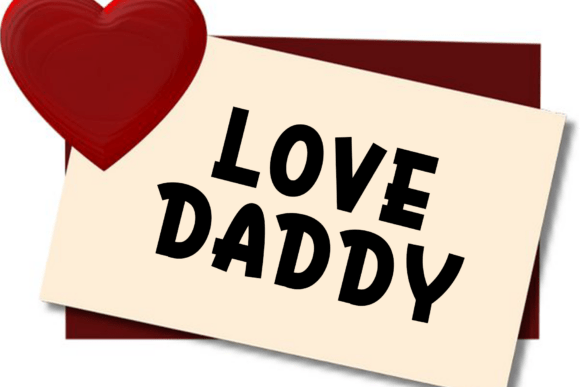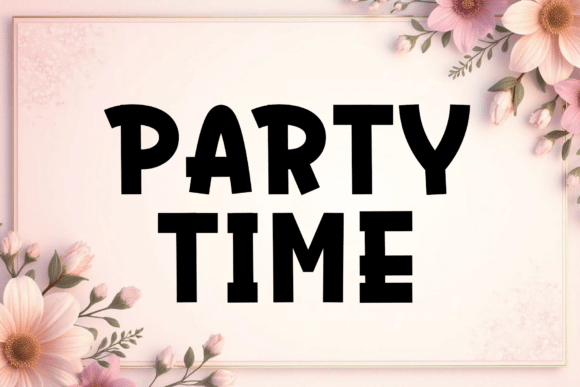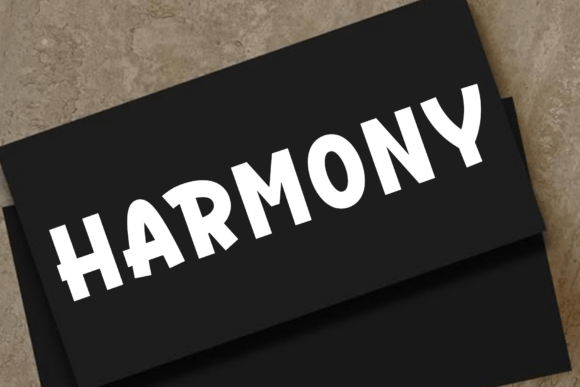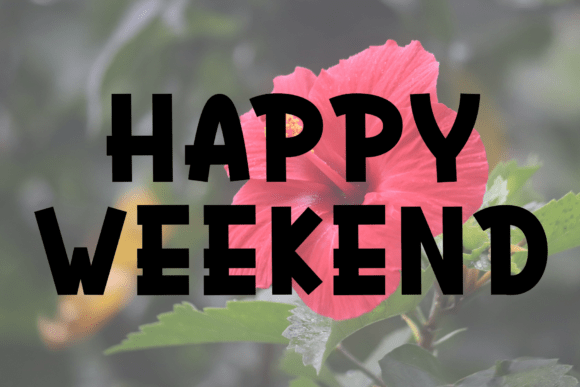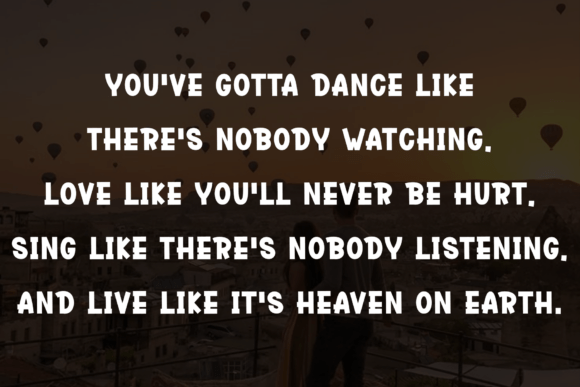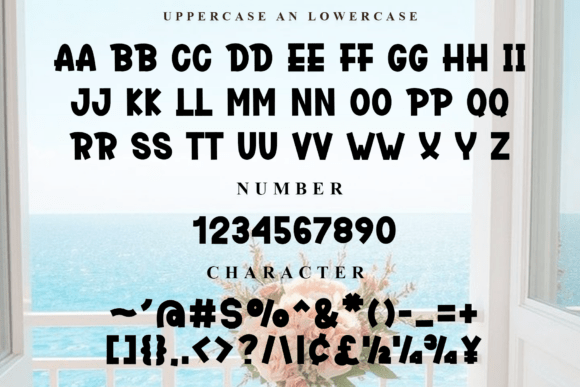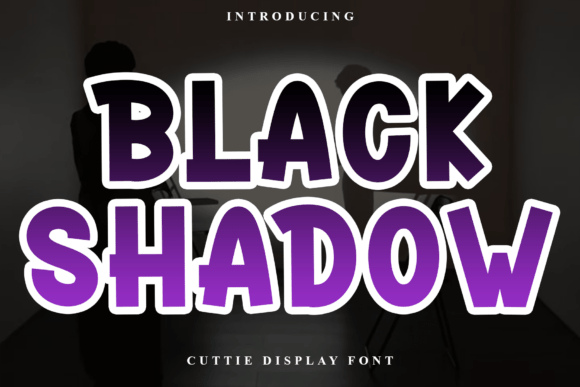
Discover the Elegance of Black Shadow Font: Elevate Your Designs with a Unique Touch
In the realm of typography, the right font can make all the difference in transforming a design from ordinary to extraordinary. For designers and crafters seeking a font that combines elegance with a distinctive flair, the Black Shadow Font stands out as an exceptional choice. This beautifully crafted font is not only visually appealing but also versatile, making it suitable for a wide array of creative projects.
The Distinctive Charm of Black Shadow Font
Black Shadow Font is characterized by its soft, unique touch that sets it apart from more traditional fonts. Its strokes are carefully designed to give the font a special character, imbuing it with a sense of elegance and sophistication. This distinctive quality makes Black Shadow Font a meaningful addition to any design, allowing creators to infuse their work with a personal touch that resonates with their audience.
One of the key advantages of Black Shadow Font is its versatility. With a comprehensive set of characters, this font is perfect for a variety of design projects, crafts, and other creative works. Whether you’re working on a logo, a website, a digital illustration, or a handmade craft, Black Shadow Font can be seamlessly integrated to enhance the visual appeal of your project.
Ideal for a Multitude of Projects
The natural style of Black Shadow Font makes it suitable for a multitude of products and projects. From branding materials and advertising to digital content and handmade crafts, this font can elevate your designs to new heights. Its broad appeal ensures that your work will be well-received by a diverse audience across different artistic and creative fields.
Enhance Your Designs with Black Shadow Font
Incorporating Black Shadow Font into your designs can significantly enhance their appeal. The font’s unique and elegant appearance can capture the attention of your audience, making your work stand out in a crowded creative landscape. Whether you’re aiming to convey sophistication, creativity, or a playful vibe, Black Shadow Font provides the perfect foundation for your design.
Tips for Using Black Shadow Font
- Pair it with complementary fonts: To create visual interest, consider pairing Black Shadow Font with fonts that complement its unique style. A combination of serif and sans-serif fonts can produce a dynamic and engaging design.
- Experiment with sizes and colors: Don’t be afraid to experiment with different sizes and colors of Black Shadow Font. Its versatility allows it to be used in both large headings and smaller body text, providing flexibility in your design.
- Use it for emphasis: Given its distinctive appearance, Black Shadow Font can be used to draw attention to key elements in your design, such as titles, headings, or quotes.
Black Shadow Font is a beautiful and eye-catching addition to any designer’s toolkit. Its soft, unique touch, distinctive strokes, and versatile nature make it an invaluable resource for a wide range of creative projects. With its wide compatibility and natural style, Black Shadow Font is poised to become a favorite among designers and crafters looking to elevate their work. Discover the elegance and potential of Black Shadow Font and take your designs to new creative heights.